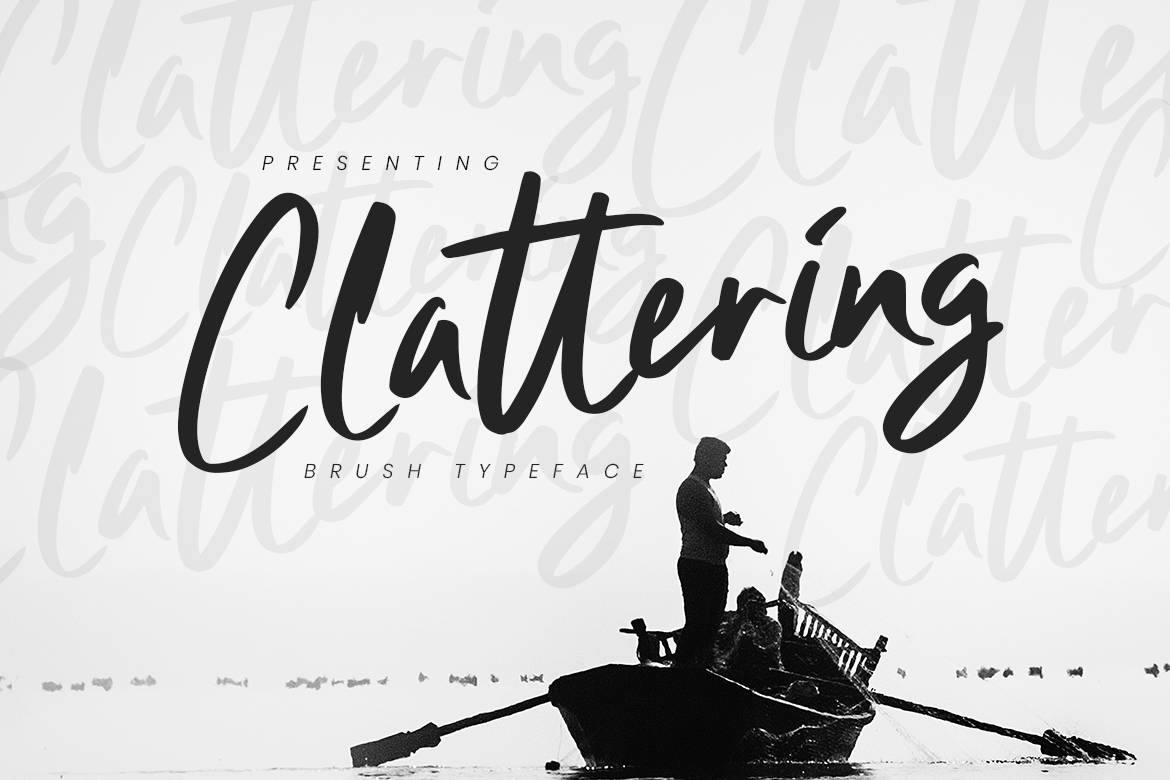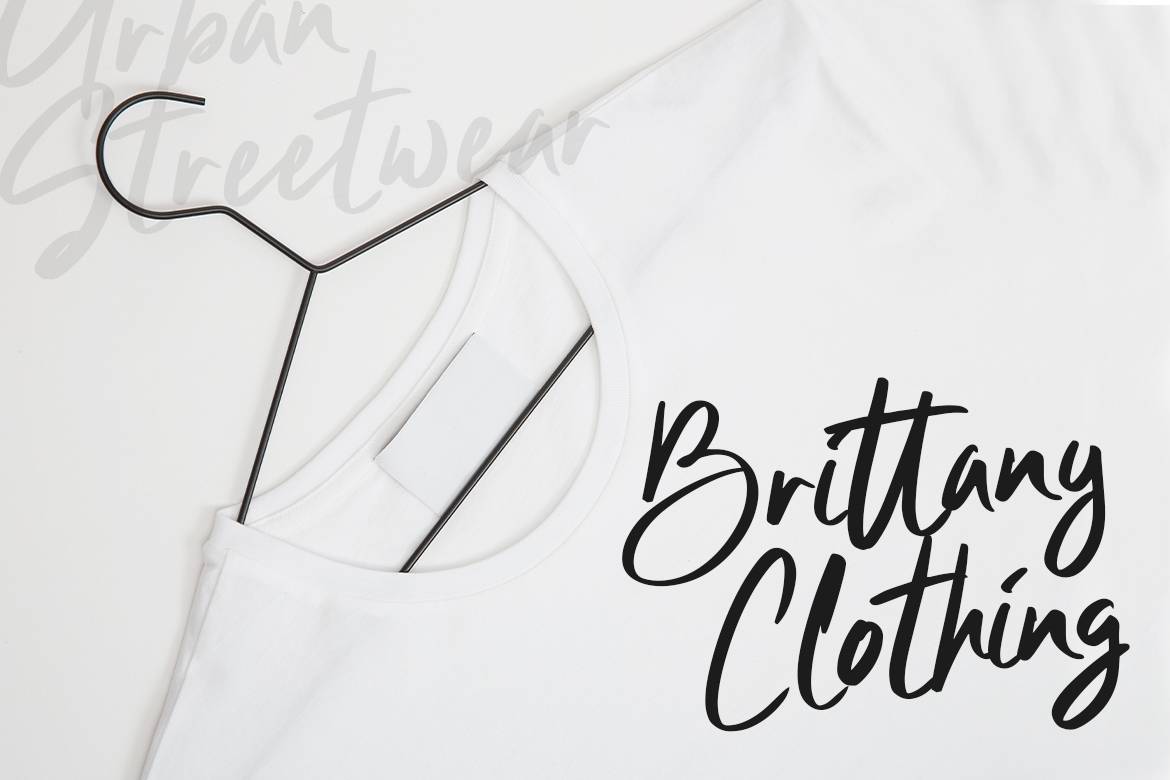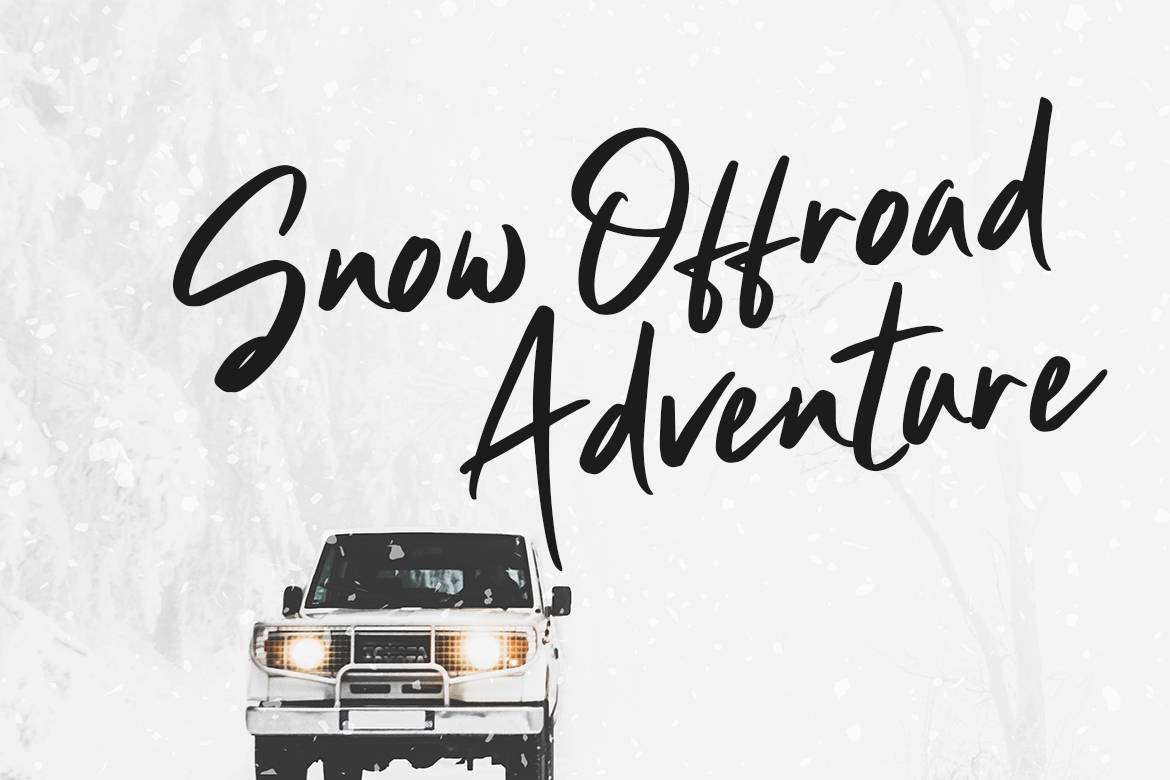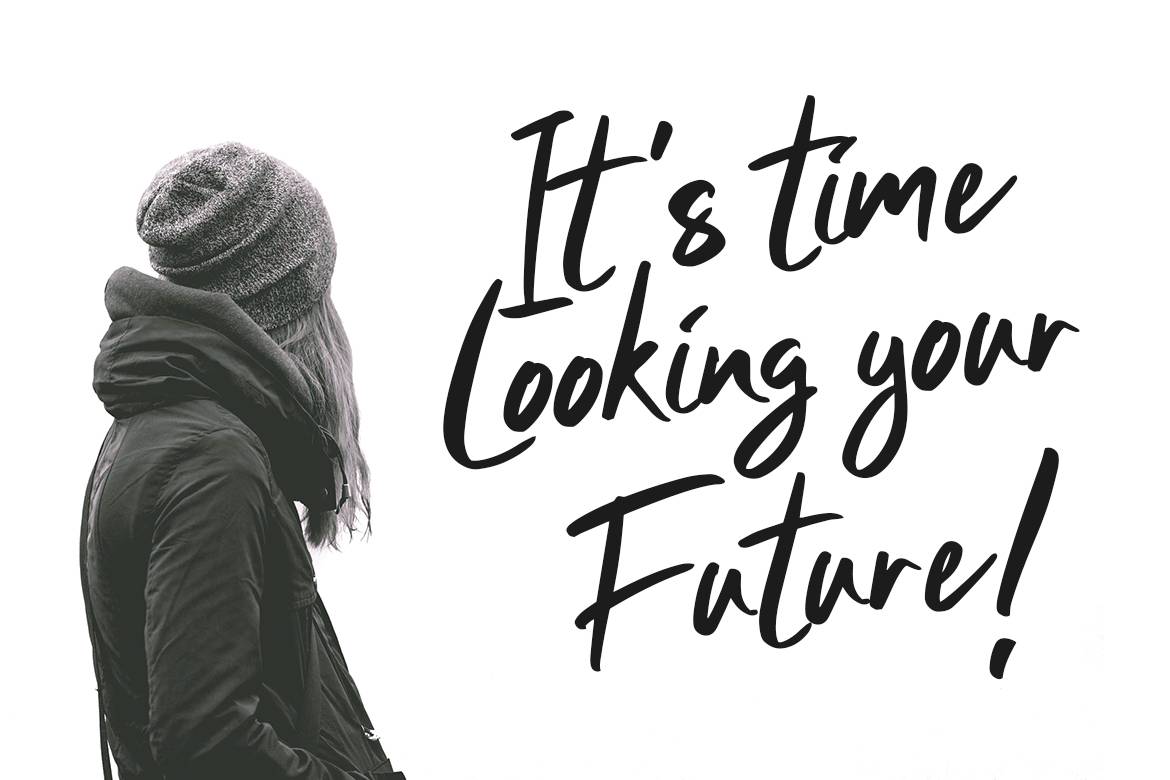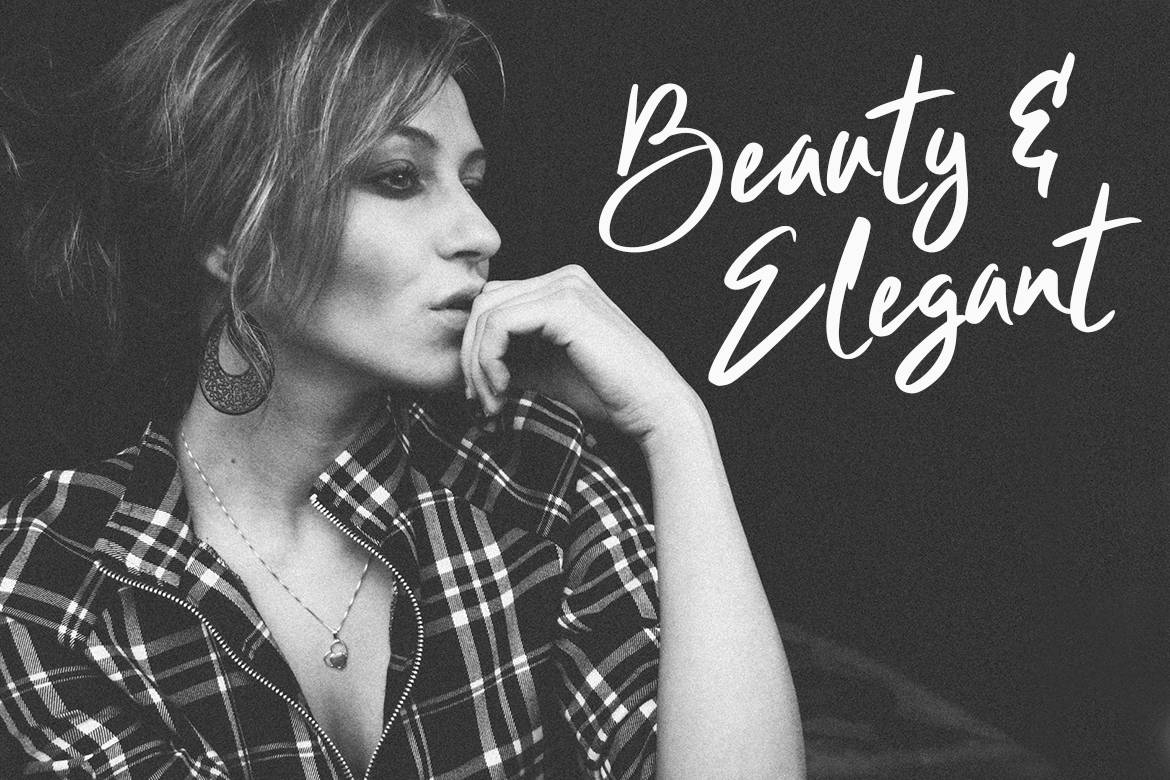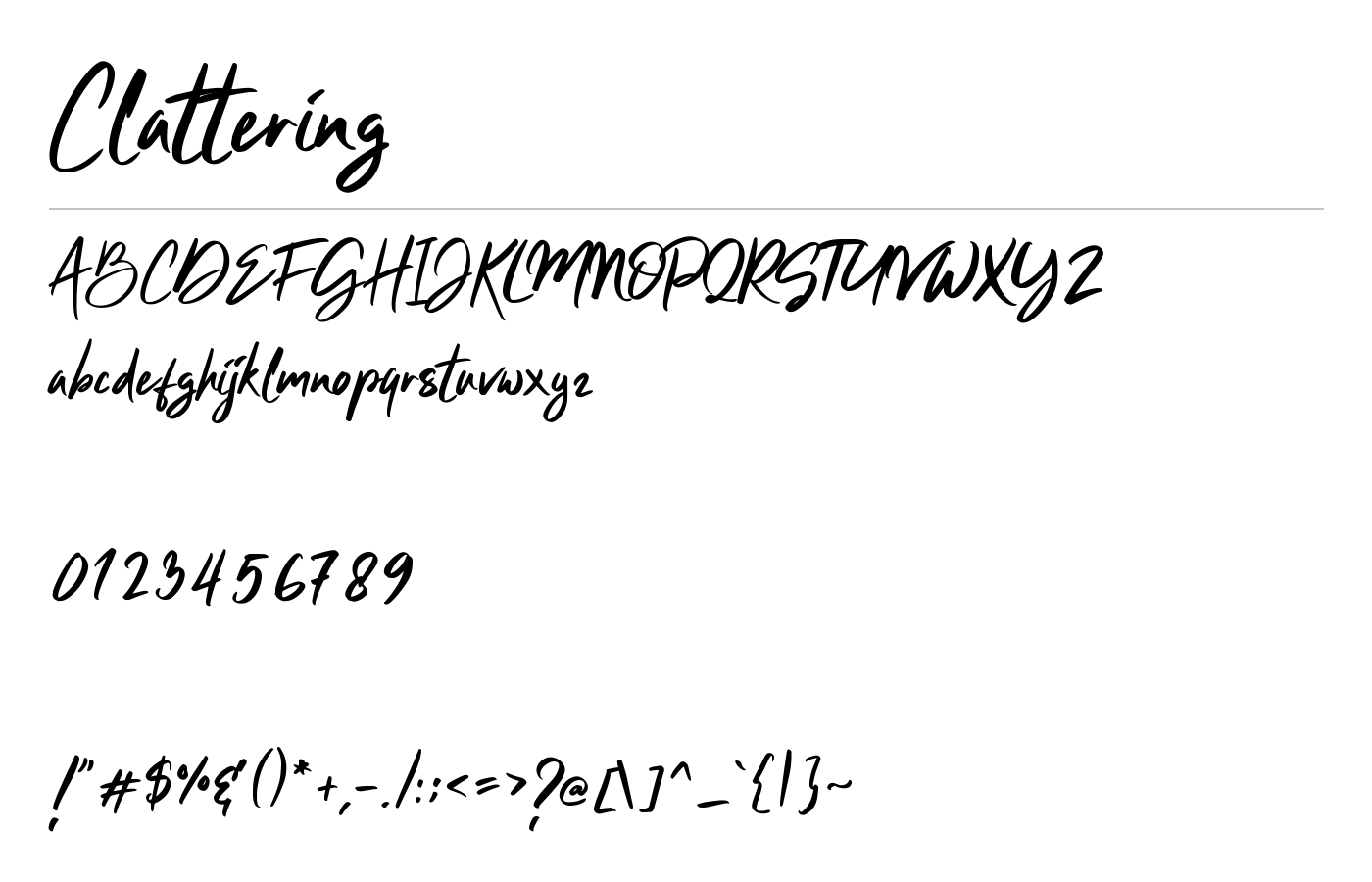
Clattering Brush Typeface is a lively and expressive script font that mimics the natural flow of brush lettering with a bold yet casual style. Its energetic strokes and varied line thicknesses create a dynamic, handcrafted feel perfect for creative and informal branding, invitations, or eye-catching headlines. This font works exceptionally well where a personal, artistic touch is desired, adding warmth and personality to any design.
Clattering Brush Typeface